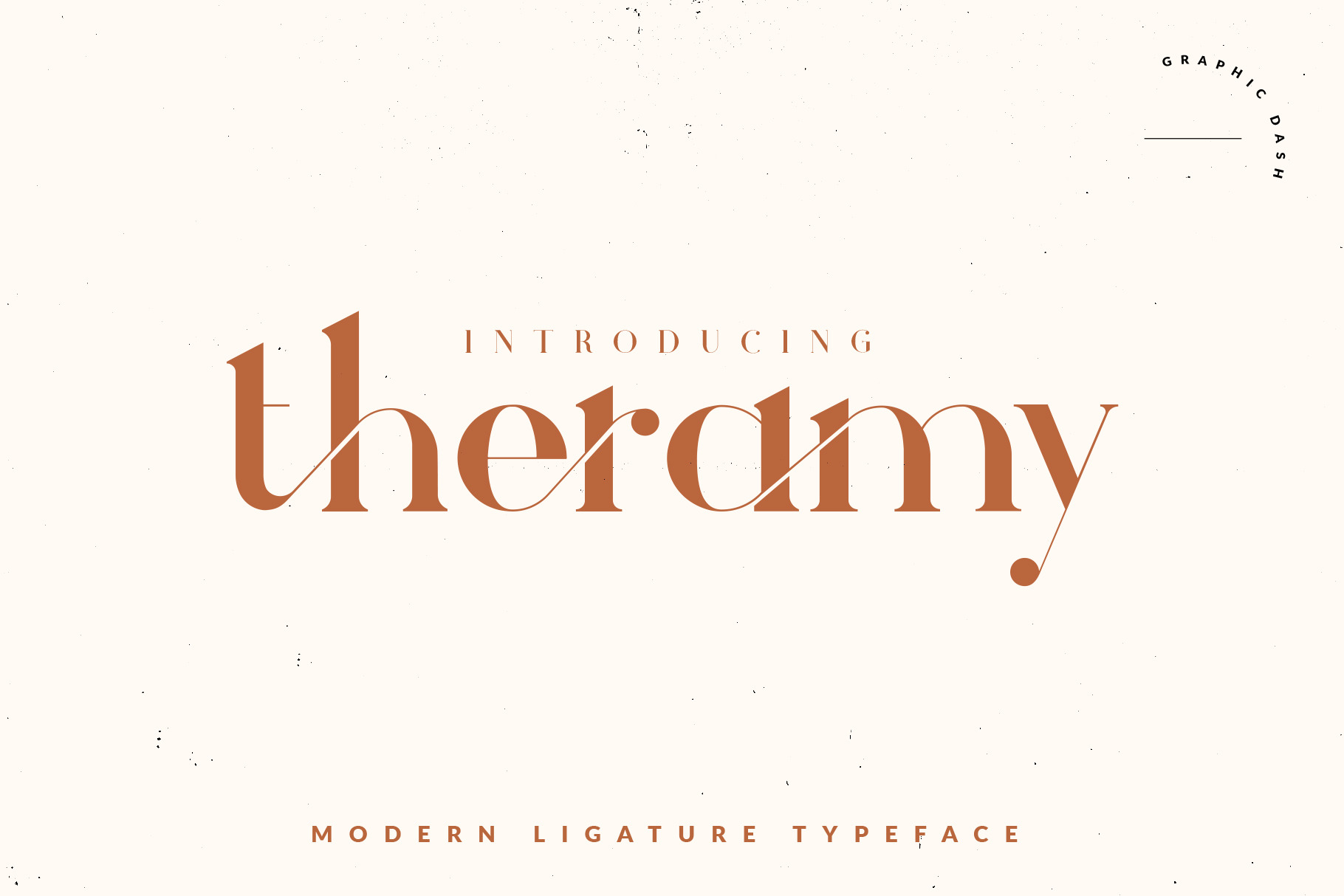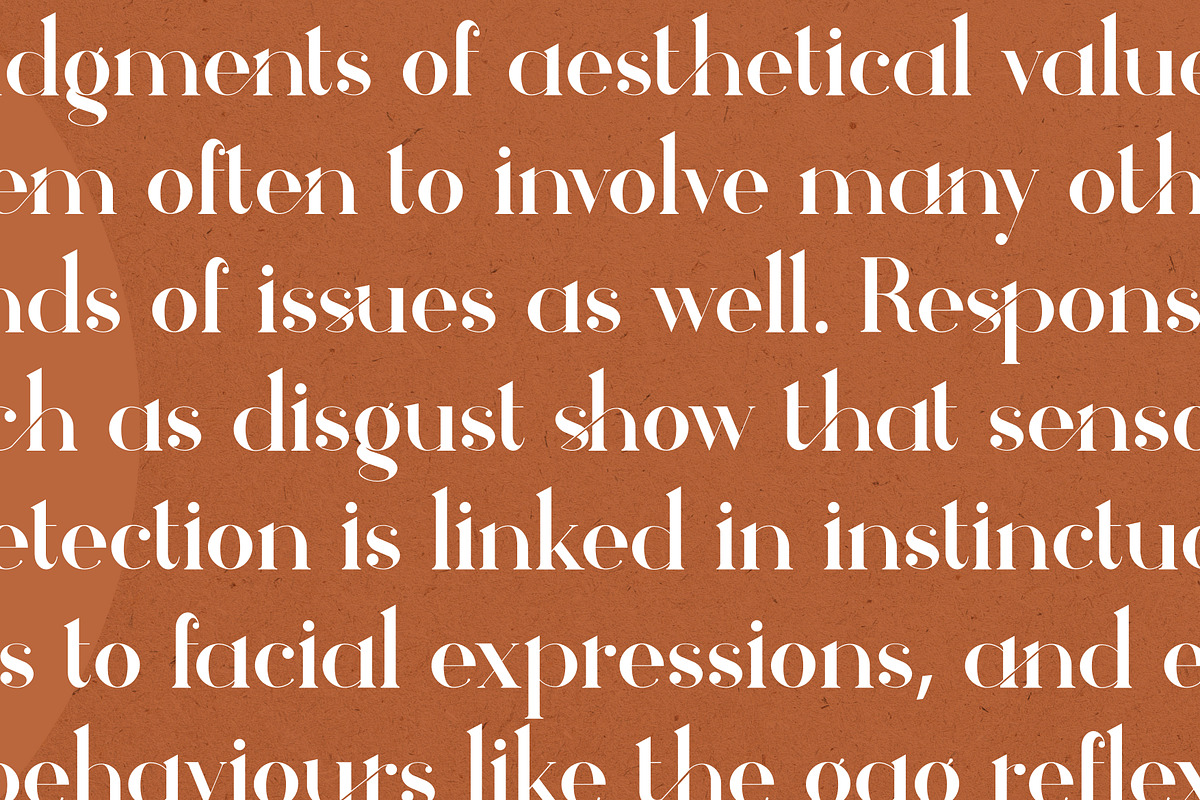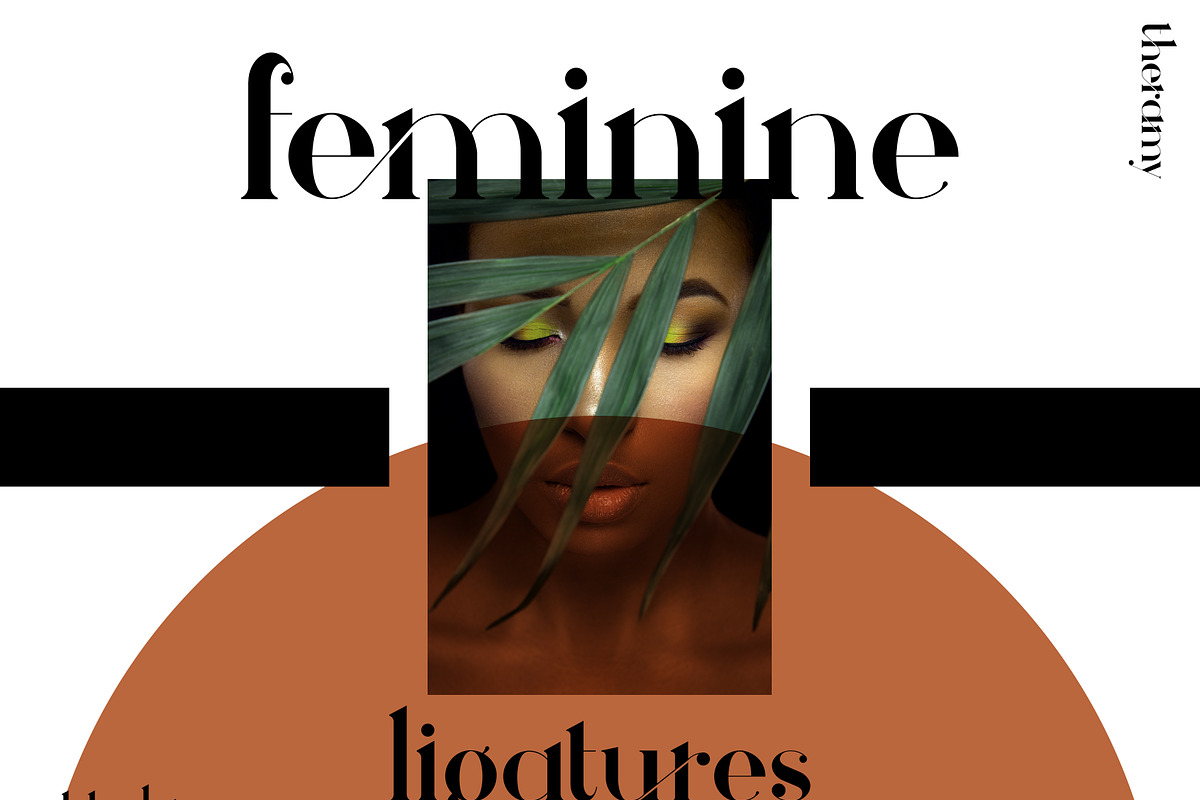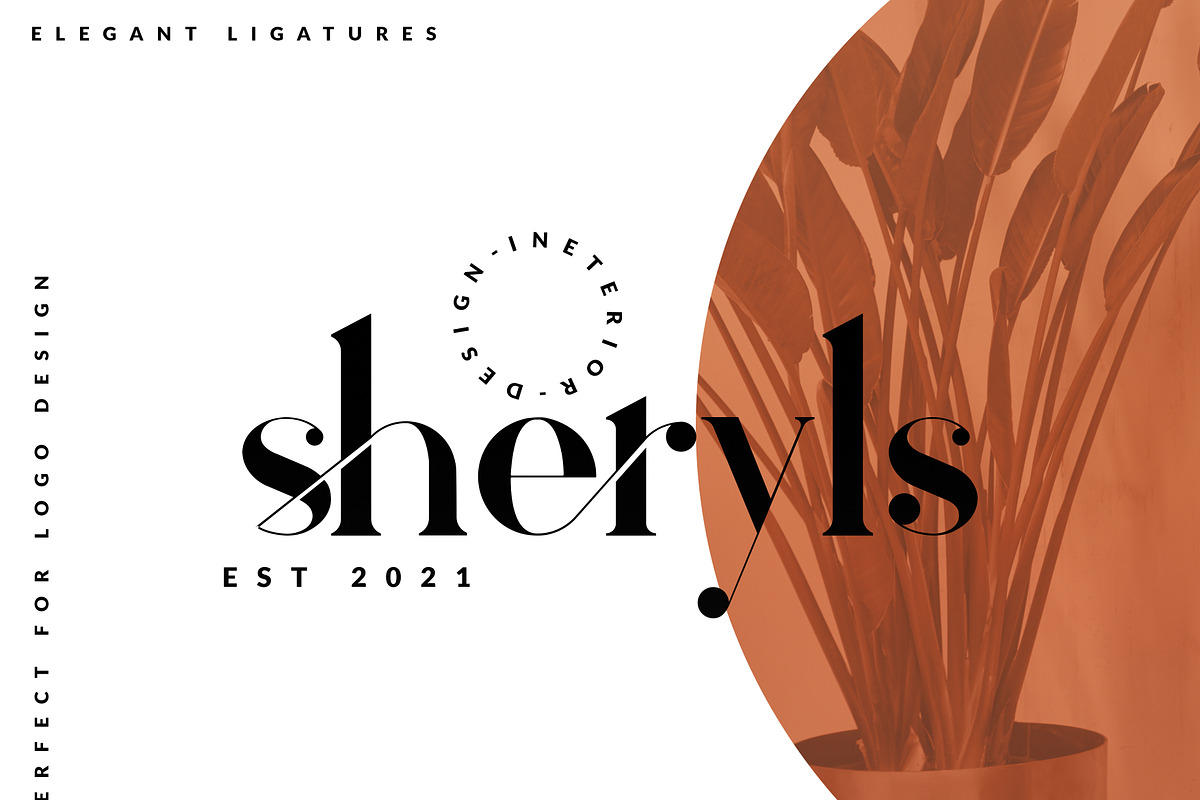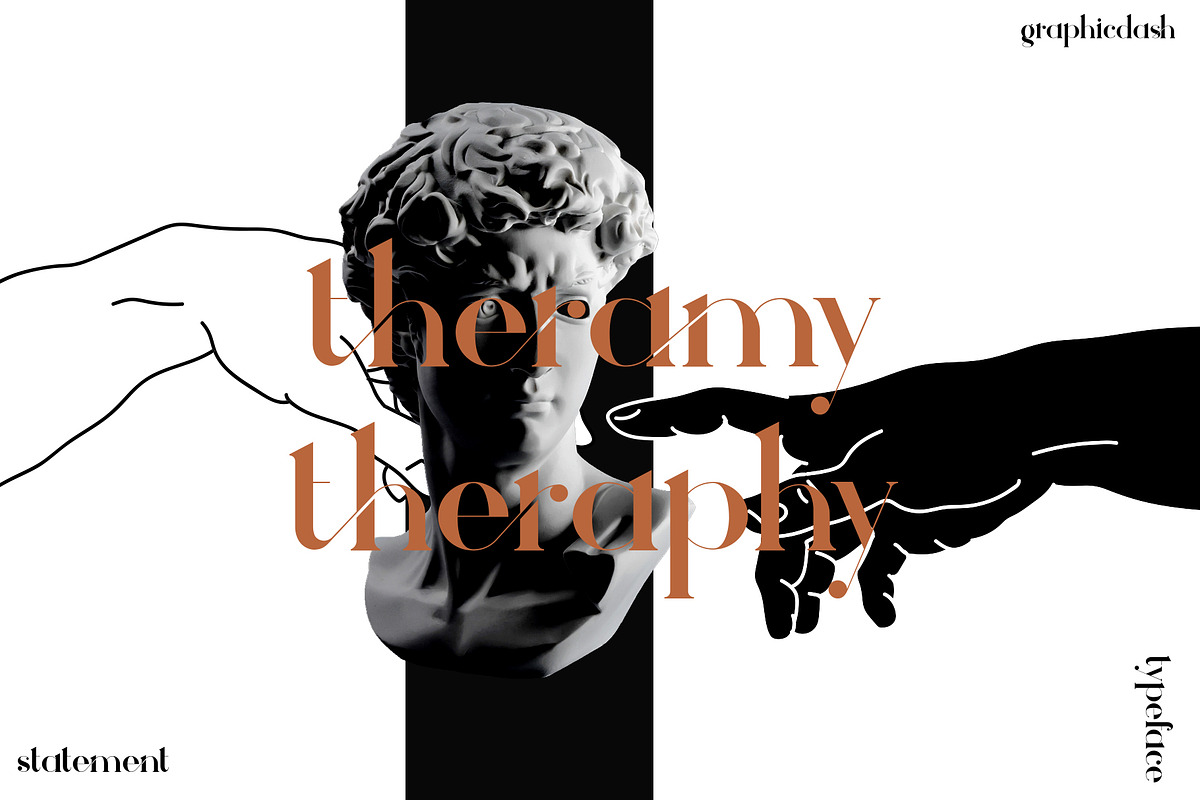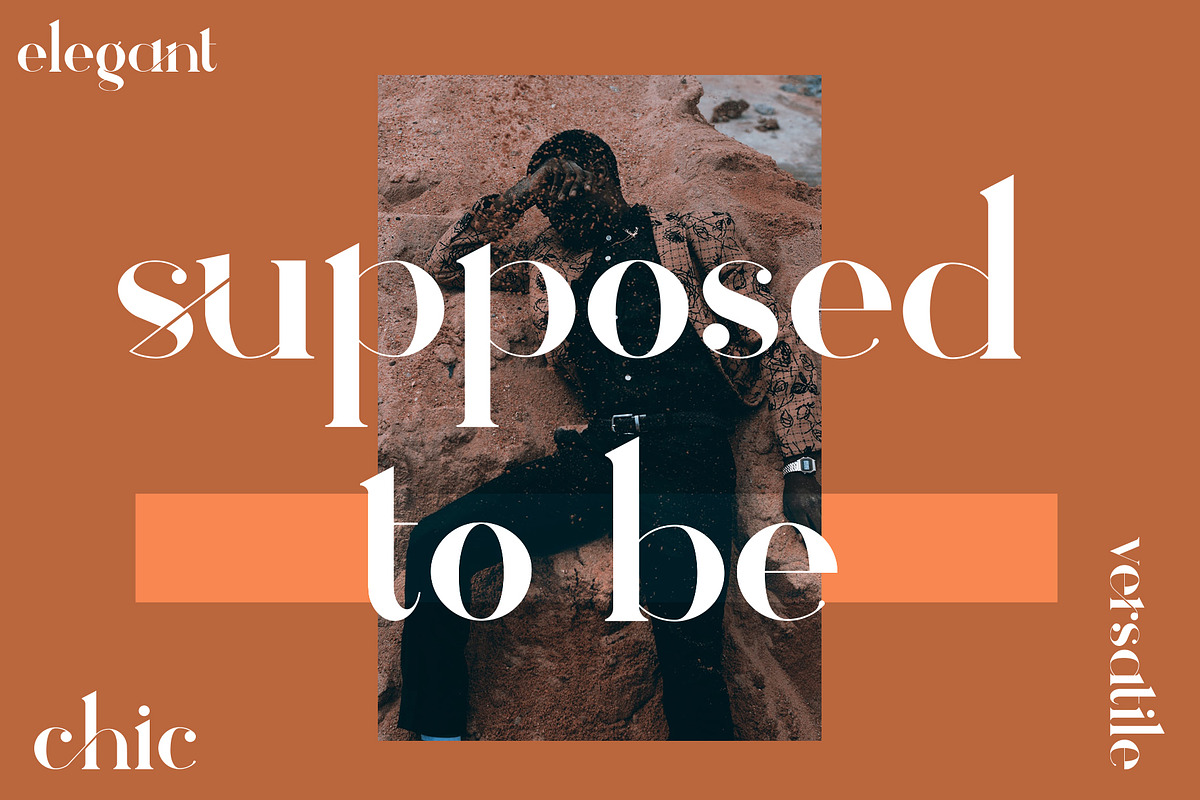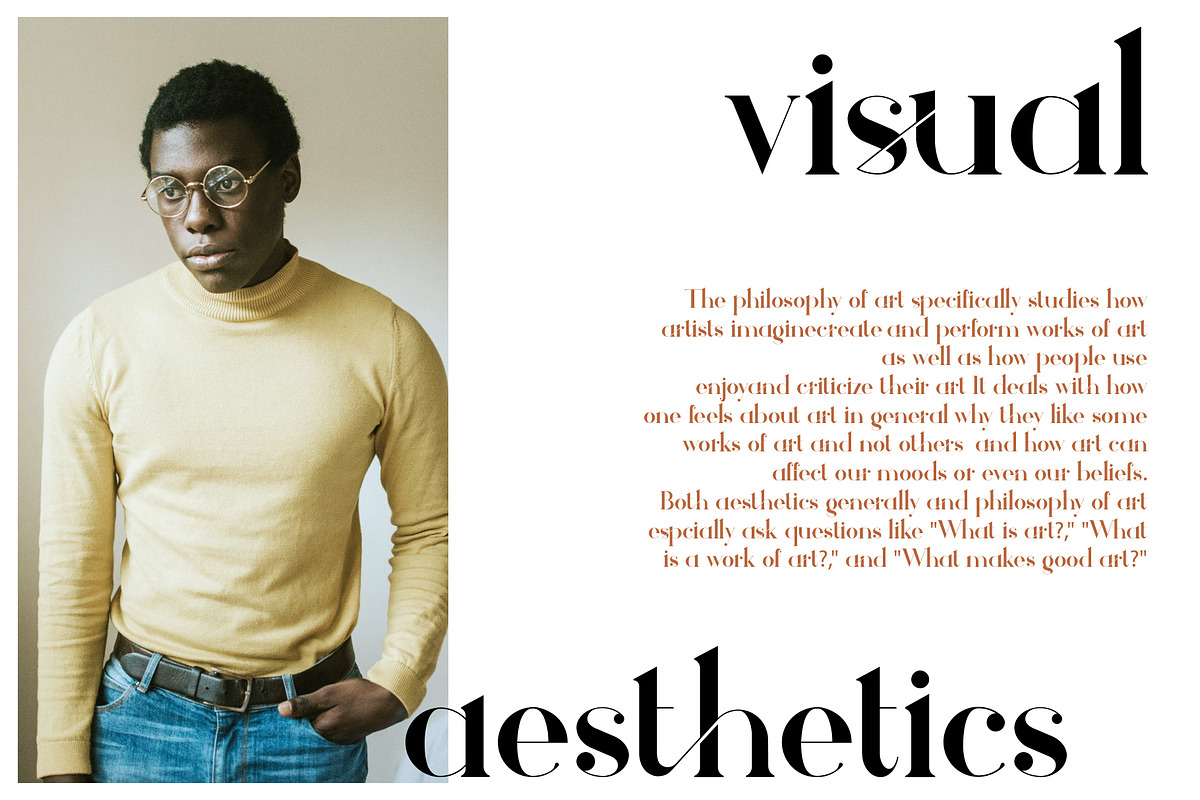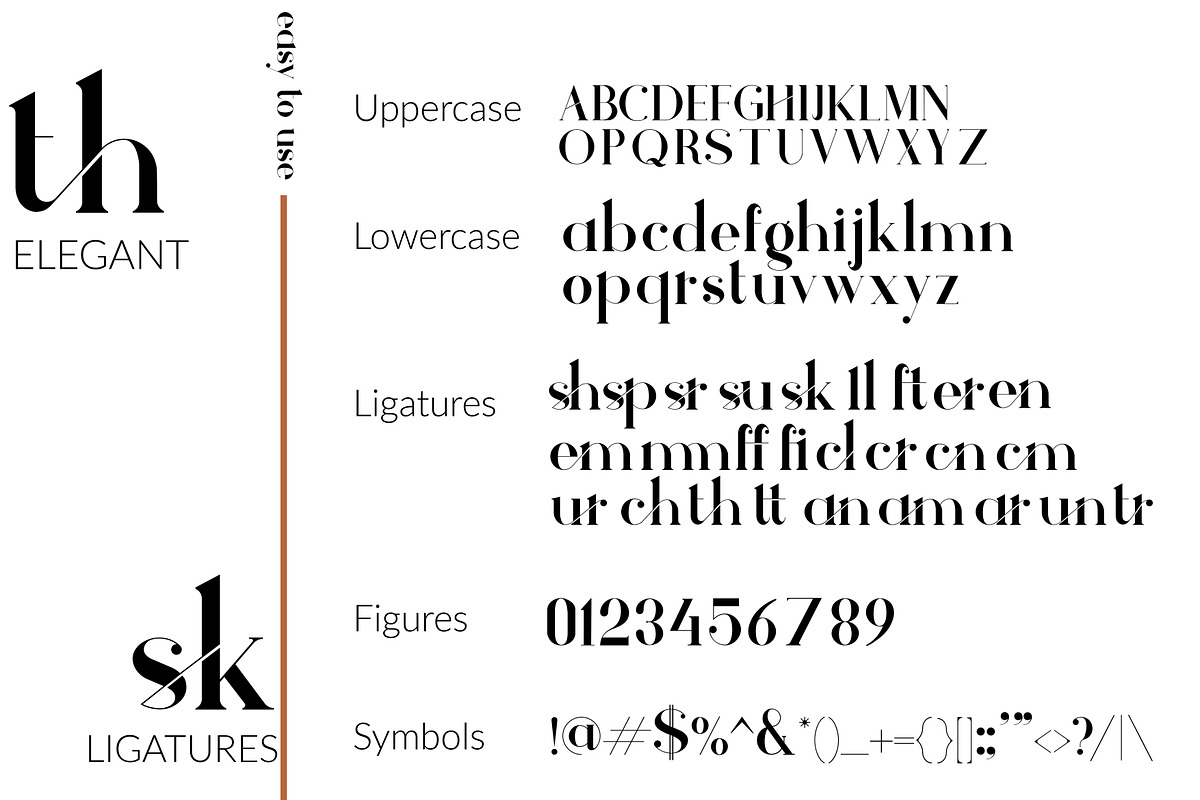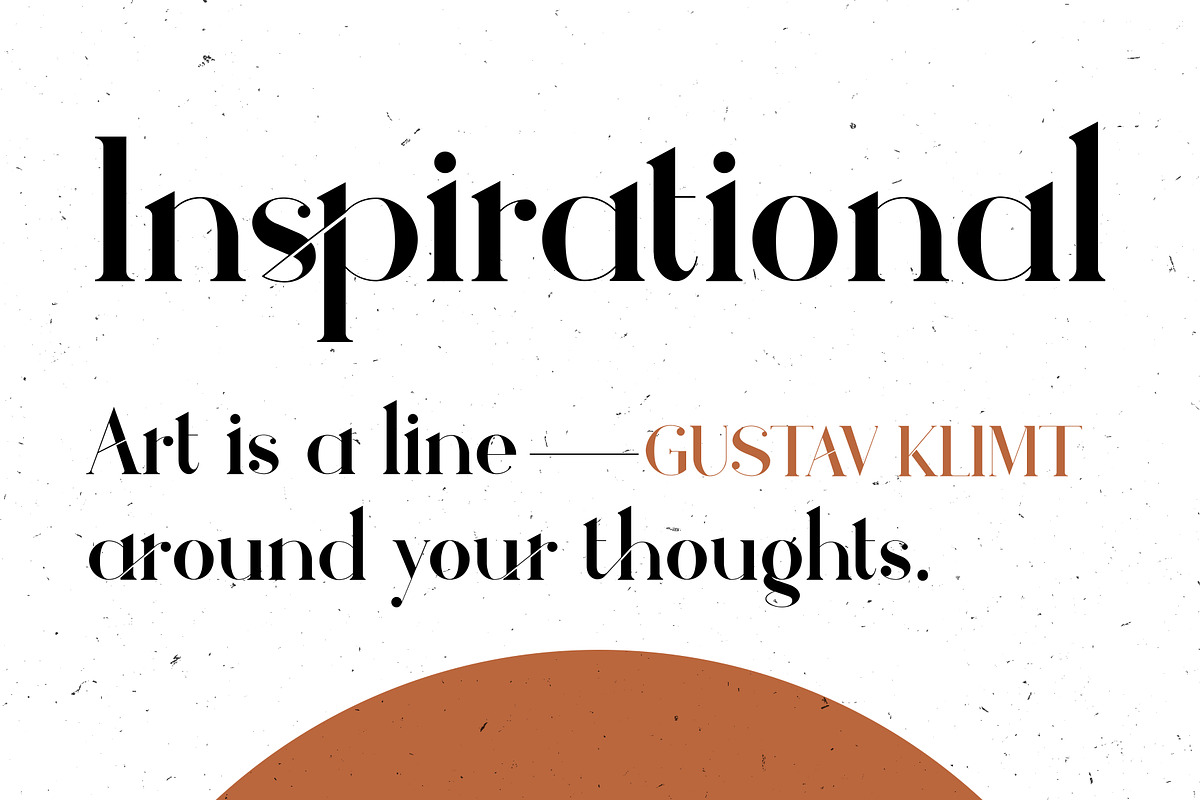
Theramy - Modern Ligature Font
Theramy - Elegant Ligatures Font
Theramy is a versatile, modern, and elegant font. It has a unique style with stylistic, alternates, ligatures, perfect for any type of design.
Create unique & beautiful logotype, use it as an elegant solution for your next magazine layout, or choose Theramy for any graphics that require a sleek look with an elegant flair.